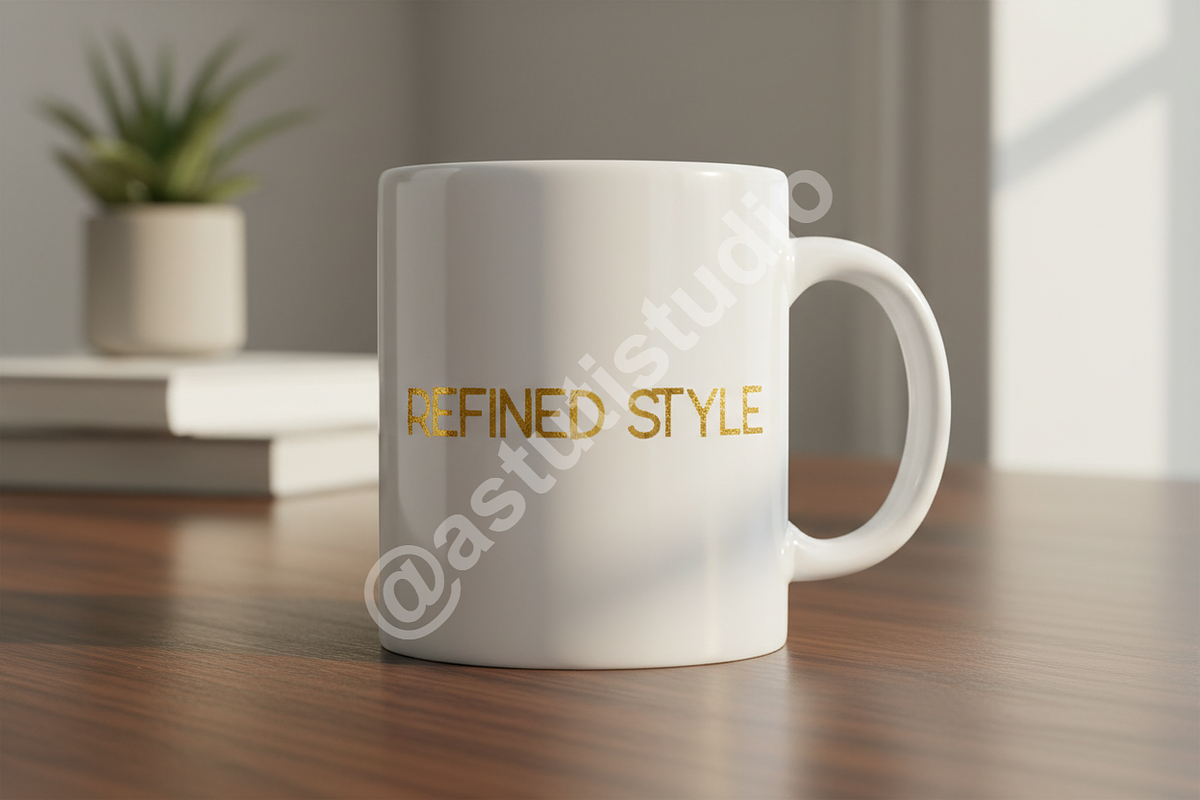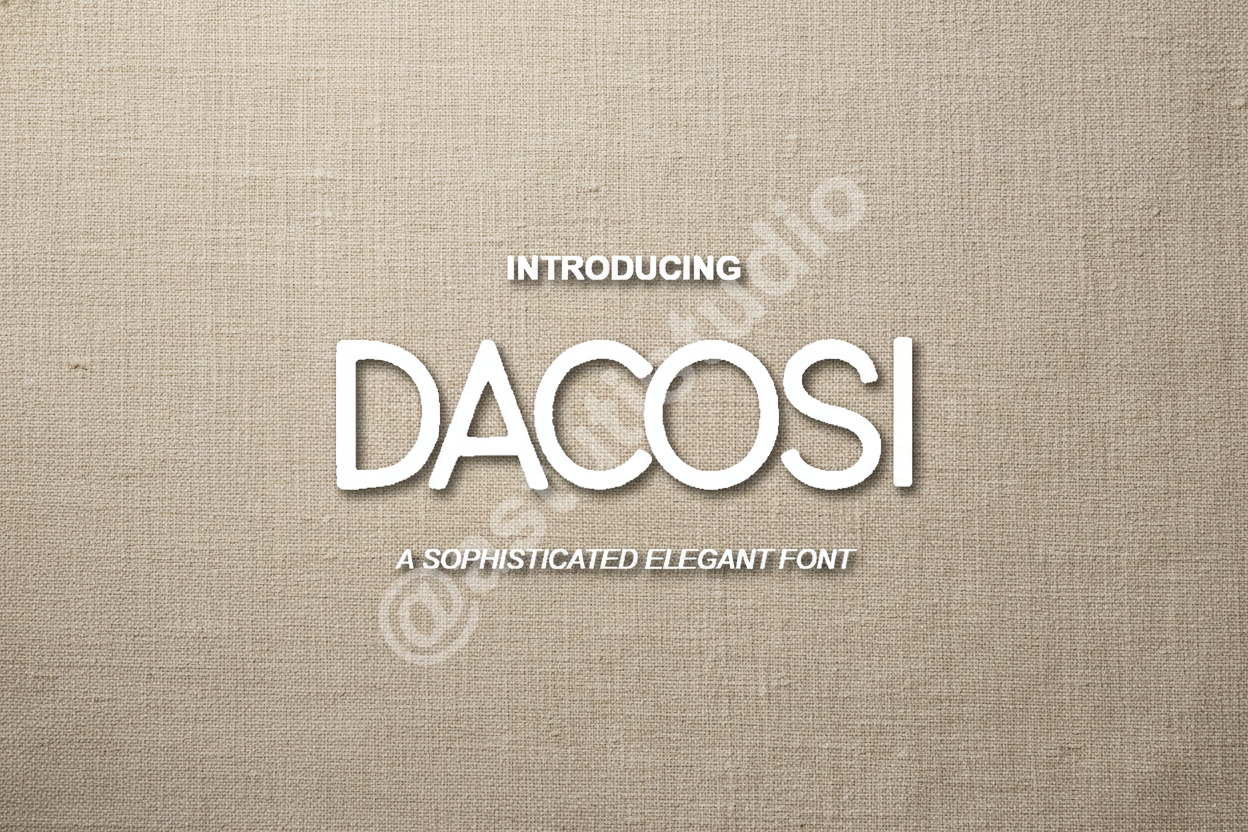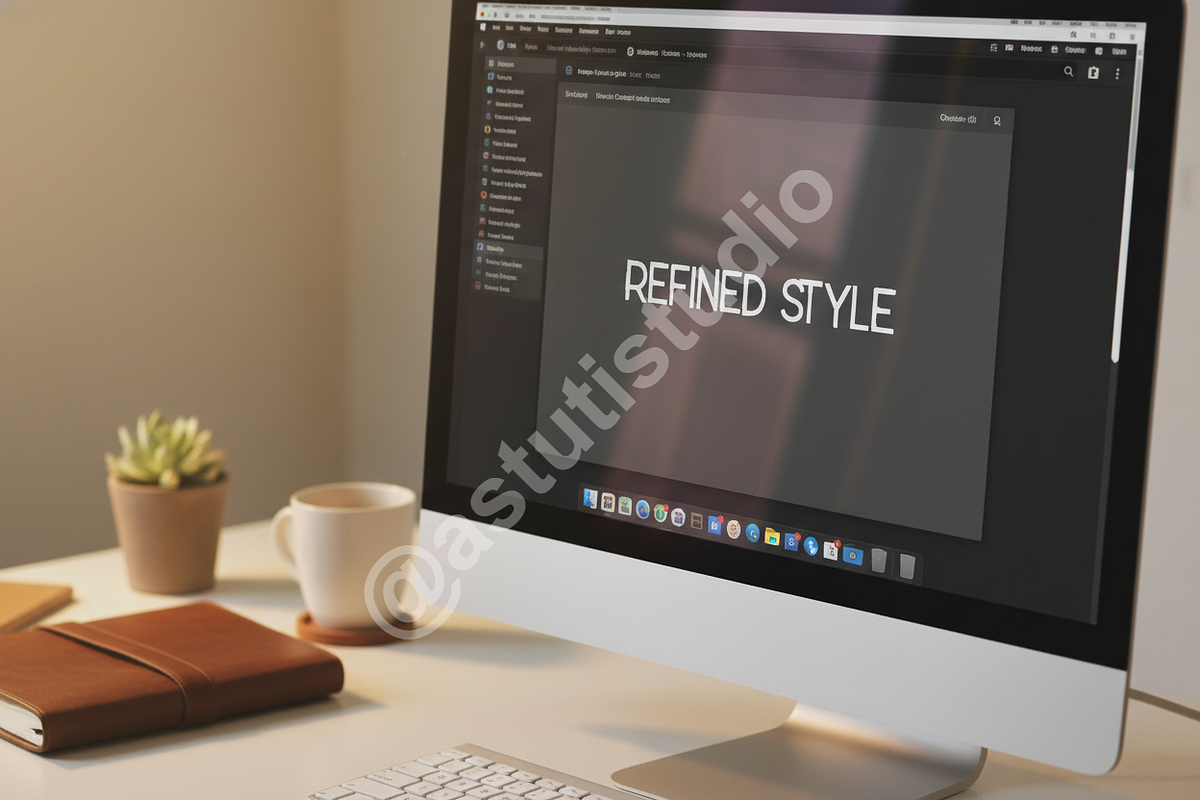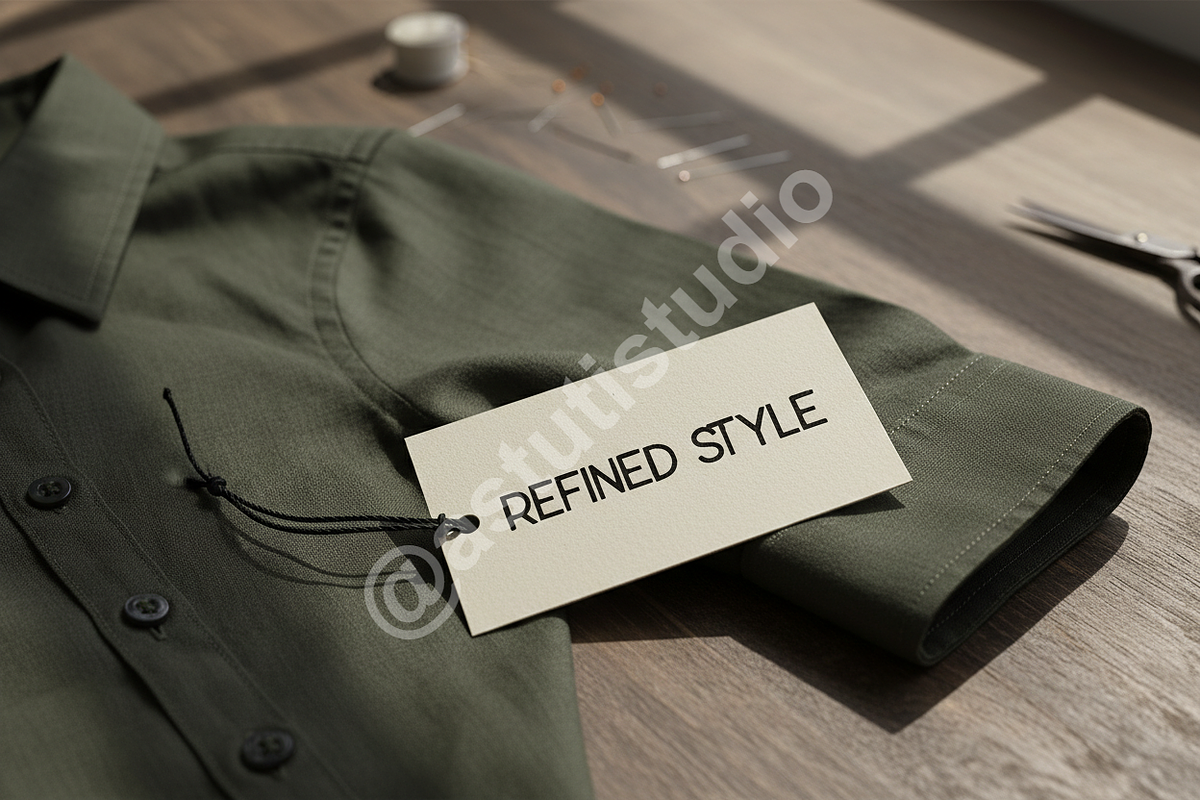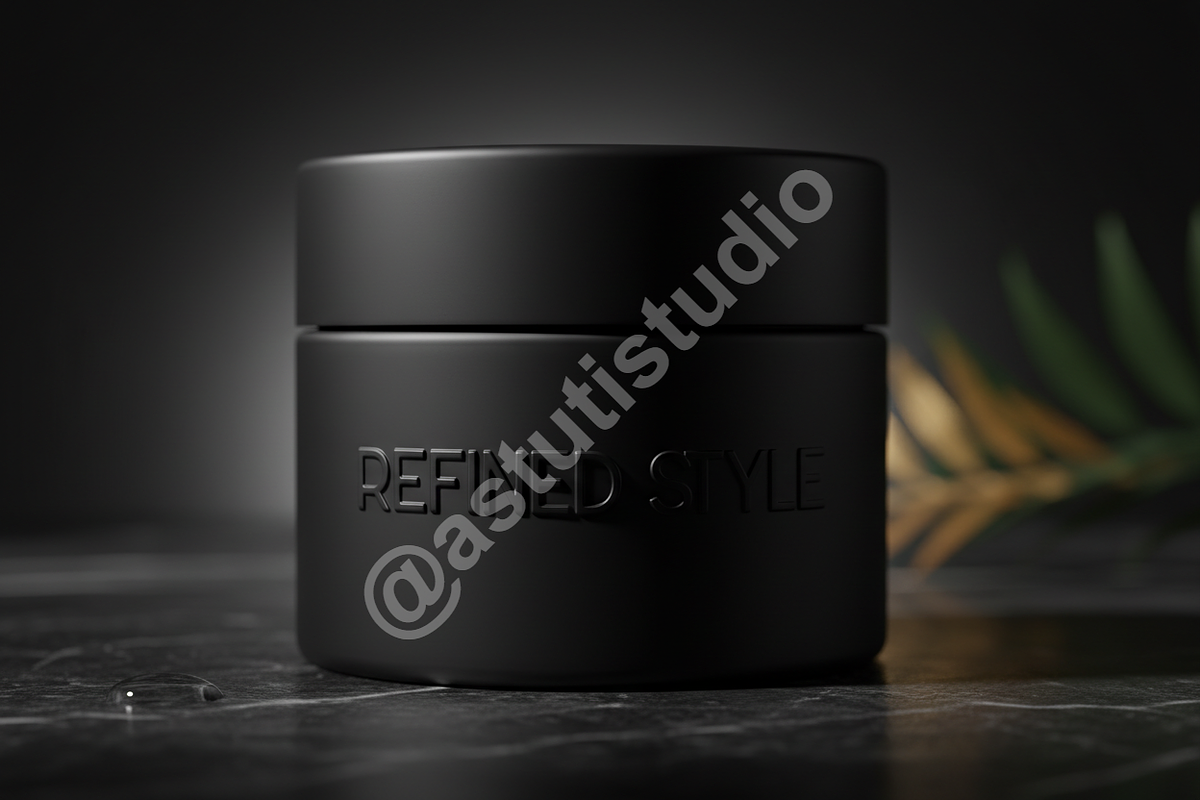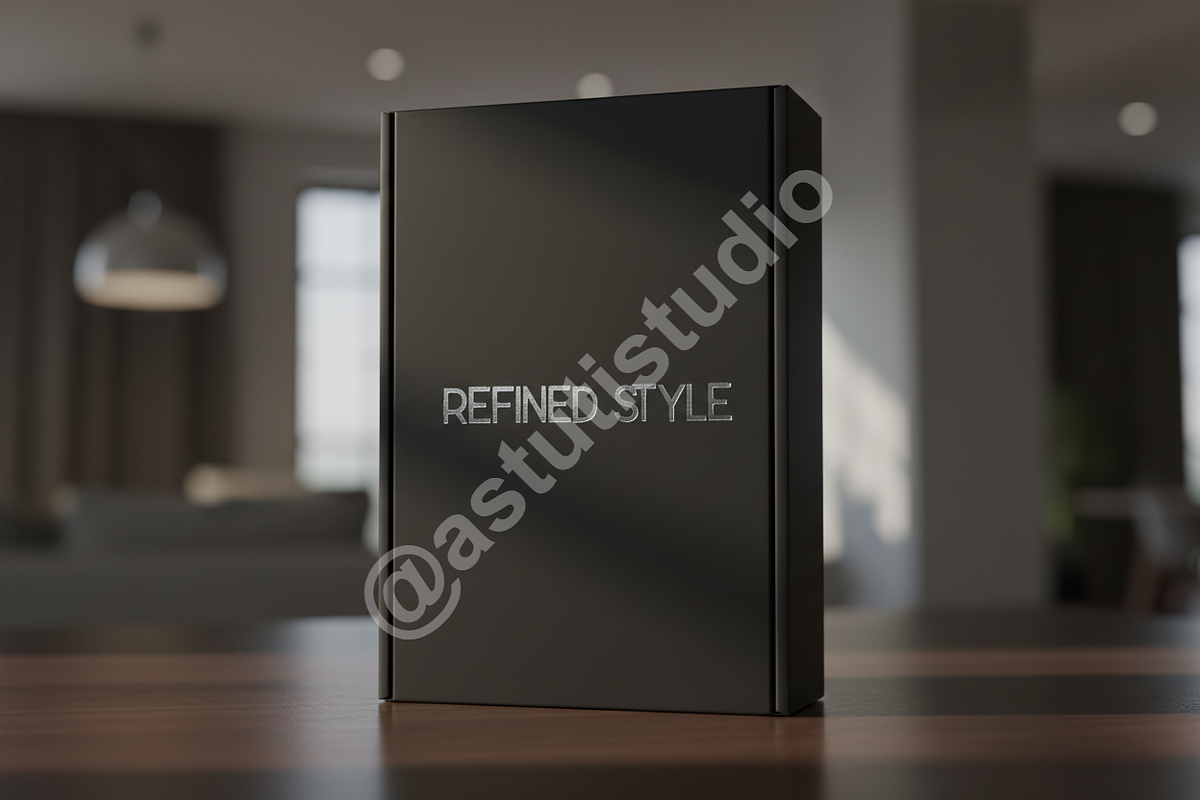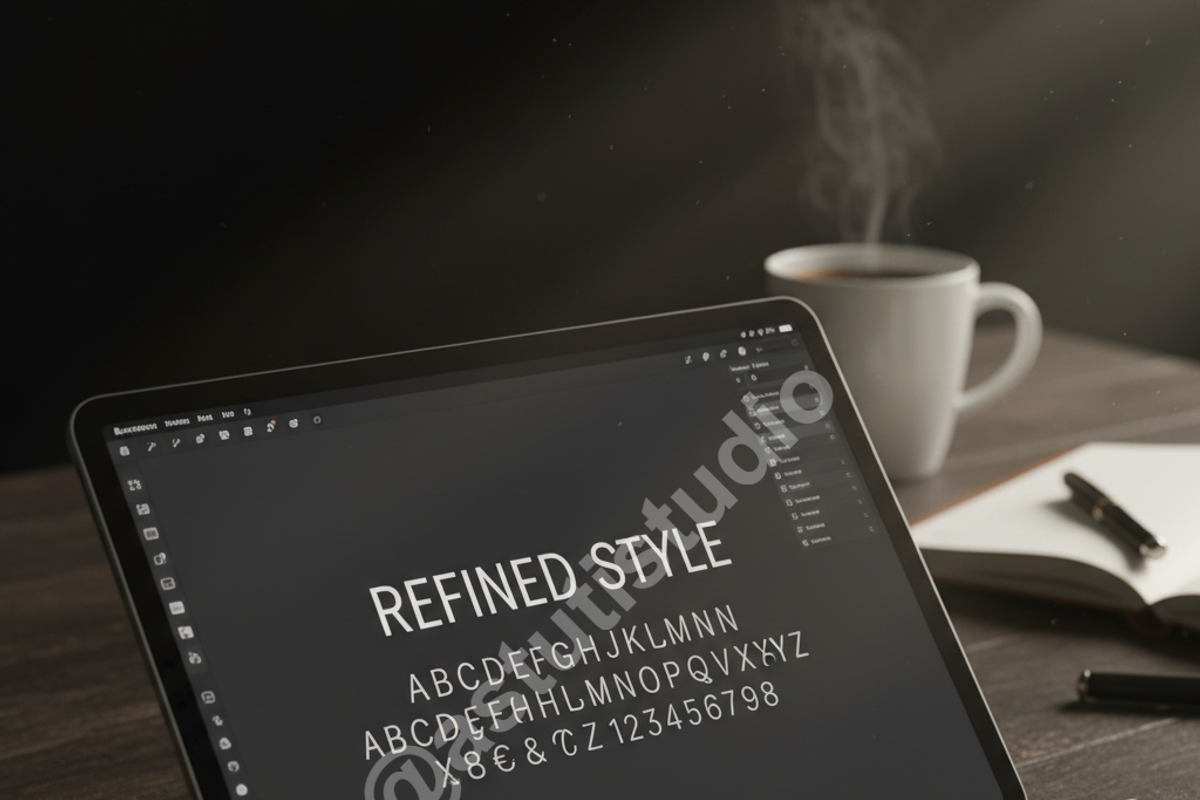
Dacosi Typeface | Modern Luxury High
Introducing Dacosi, an exquisitely crafted typeface designed for the discerning creative. Dacosi embodies refined elegance and timeless sophistication, making it the definitive choice for projects demanding a high-end visual presence. Its high contrast strokes and graceful terminals are engineered to capture attention, whether in large editorial spreads, digital campaigns, or subtle luxury collateral.
Key Design Features:
- Perfect for Luxury Branding: Ideal for high-fashion labels, jewelry, fine dining, and prestige corporate identity.
- Editorial Authority: Optimized for magazine layouts, annual reports, and impactful headlines.
- Digital & Social Media Ready: Maintains elegance and readability across all digital platforms (web, app, social graphics).
- Extensive Language Support: Includes comprehensive glyph coverage for major Western European languages.
- OpenType Functionality: Features standard ligatures and stylistic alternates for enhanced typographic control.